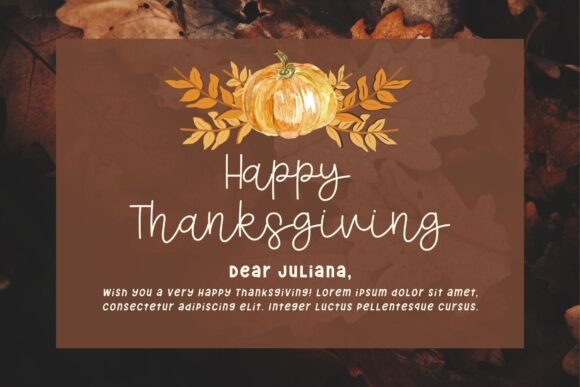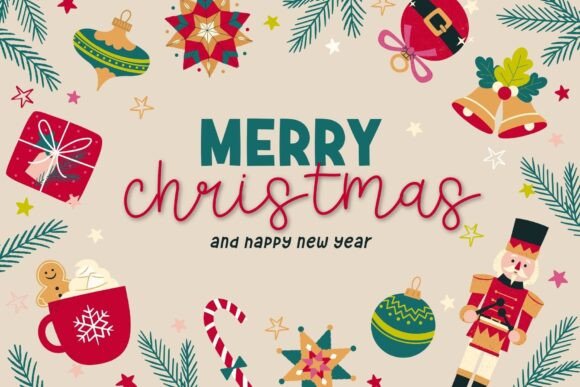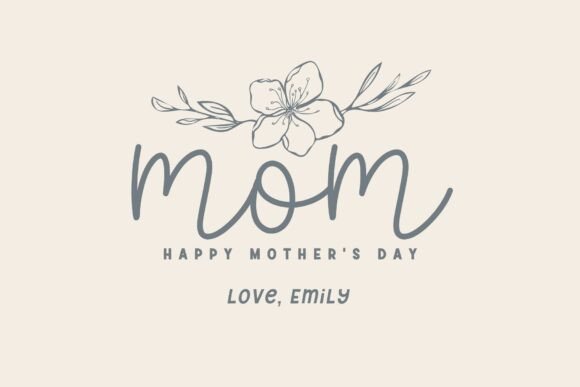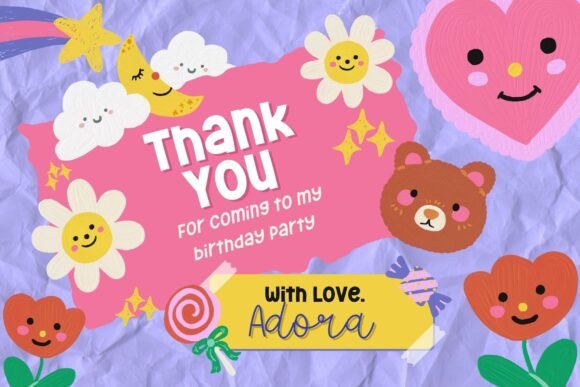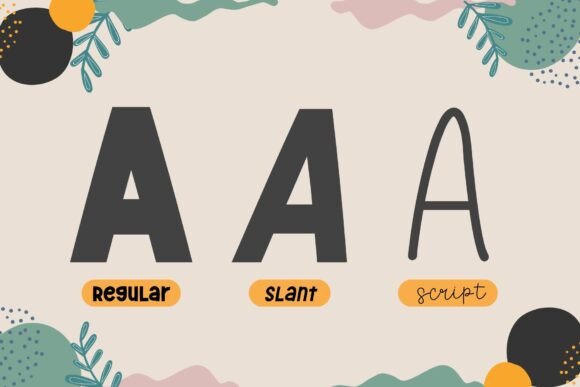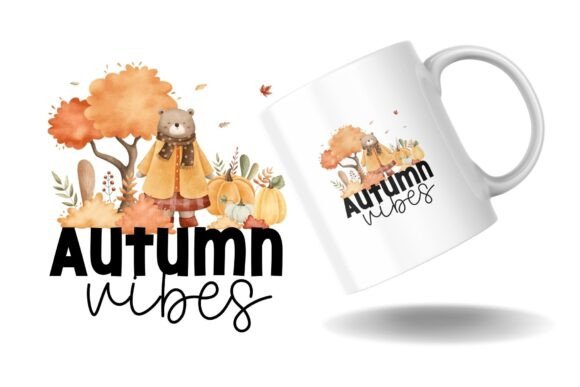
Introduction to Fox Maple Font
Have you ever stared at a blank canvas, searching for the perfect font to bring your creative project to life? That’s exactly what happened to me the last time I was designing a new t-shirt line. I wanted something that would capture the playful essence of my brand, but nothing seemed quite right. That’s when I stumbled upon the Fox Maple Font – a vibrant, handwritten font that instantly stole my heart.
As a designer, I can attest that finding the right font can make all the difference in a project. The Fox Maple Font is more than just a pretty face; it’s a high-quality design resource that offers endless possibilities. With its bold personality and versatility, it’s perfect for creating eye-catching headlines, product labels, and banners. And the best part? It’s available for free download, complete with a transparent background, making it easy to integrate into any design.
Key Features of Fox Maple Font
- High-quality design resource for creative projects, ideal for use in graphic design, digital art, and typography.
- Unique, elegant design aesthetic with a natural, organic feel, perfect for projects that require a touch of sophistication.
Honest Review: Fox Maple Font
As a designer, I’m always on the lookout for high-quality design resources that can elevate my creative projects. Recently, I stumbled upon the Fox Maple Font, and I’m excited to share my honest review.
- ✨ High-quality typography: Fox Maple Font boasts beautiful, modern lettering that’s perfect for a variety of design applications.
- ⚠️ Limited font styles: While the Fox Maple Font is stylish and modern, it’s a single font family with limited styles to choose from.
- ⚠️ No bold or italic variants: I found it a bit restrictive that the font doesn’t offer bold or italic variants, which can limit its versatility.
Overall, I’m impressed with the Fox Maple Font, but I wish it offered more font styles and variants. Despite these limitations, it’s a great addition to any designer’s toolkit, and I appreciate the free download option.
Tips for Getting the Most Out of Fox Maple Font
For the best results, use Fox Maple Font on a transparent background to create a clean and modern design. Experiment with different font sizes and styles to add depth and interest to your design project. You can also combine Fox Maple Font with other design elements to create a unique and creative project.
Fox Maple Font is a versatile design resource that can be used for a variety of creative projects, including logos, branding, and marketing materials. Its high quality and transparent background make it an ideal choice for designers looking to create professional and visually appealing designs.